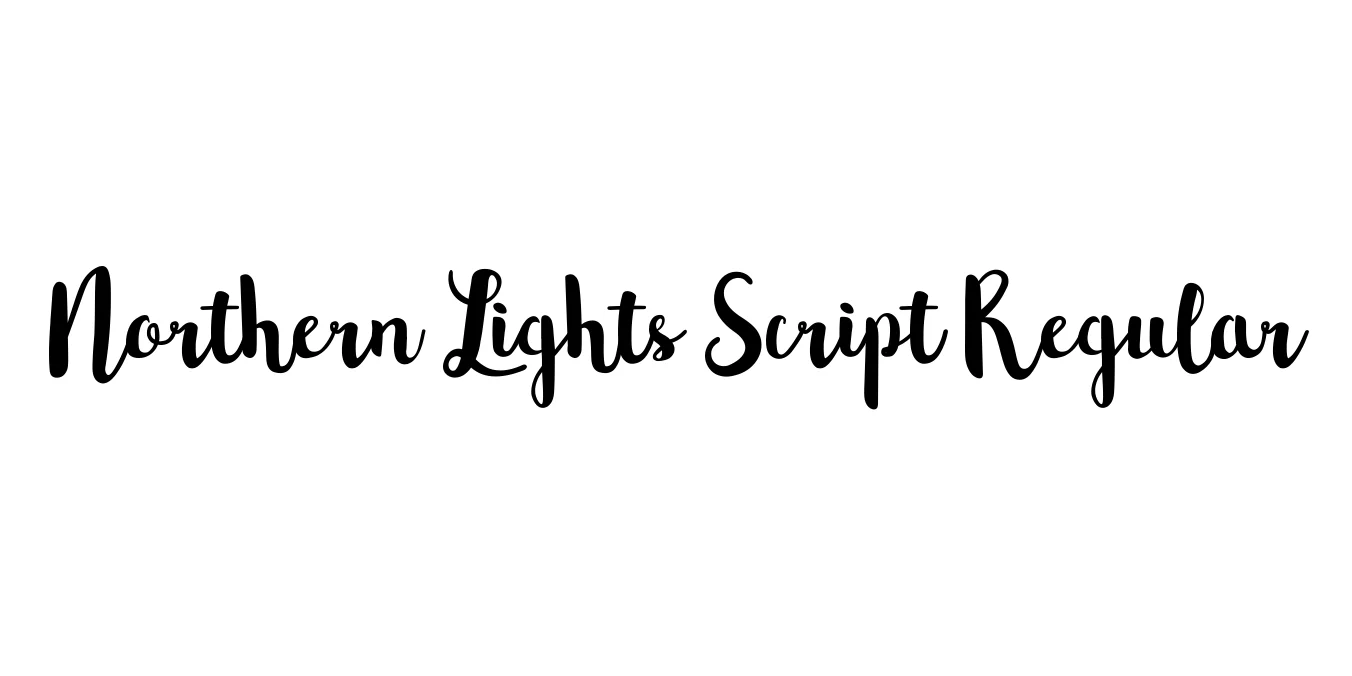
Northern Lights Script Regular
Designed by Mats-Peter Forss
Northern Lights Script Regular is a beautifully crafted hand-drawn typeface designed by Mats-Peter Forss. Characterized by its organic, fluid strokes and authentic brush-painted texture, this font captures a sense of natural elegance and rustic charm. It was developed to provide designers with a versatile tool for creating human-centric designs that require a touch of personality and warmth.
The font features a complete set of upper and lowercase letters, along with numerals and basic punctuation. Its handwritten aesthetic makes it particularly effective for high-end branding, invitation suites, and lifestyle photography overlays. Since its release, Northern Lights has become a popular choice for those seeking a balance between casual spontaneity and professional design standards.
Northern Lights Script Regular Best Uses
Perfect for elegant invitations, RSVP cards, and envelopes.
Ideal for creating engaging Instagram quotes, stories, and lifestyle posts.
Great for lifestyle, fashion, and boutique outdoor brands.
Adds a bespoke, personal touch to handcrafted product labels.